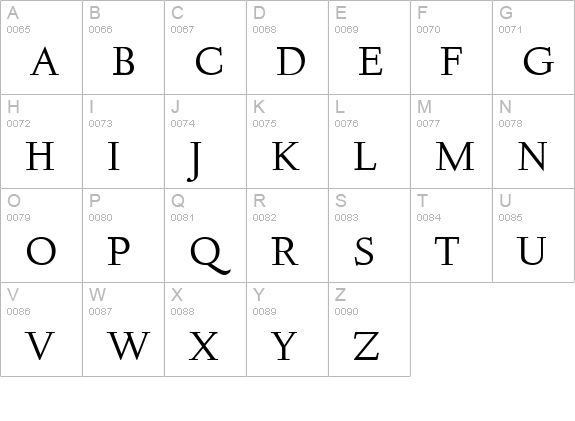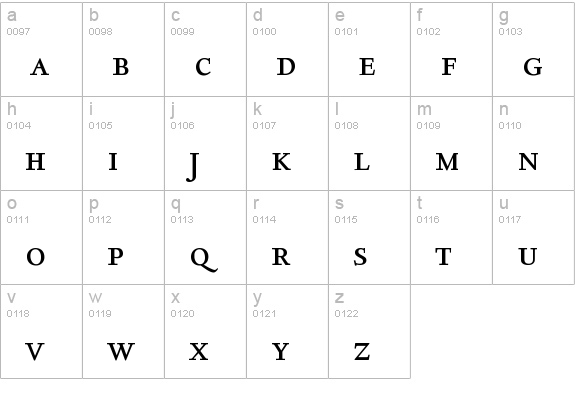
Deepdene Expert Roman Font Details
Deepdene Expert Roman font is a timeless and sophisticated typeface that exudes elegance and professionalism. Its clean lines and classic design make it perfect for a wide range of projects, from branding to editorial design. The font features a balance of traditional and modern elements, making it versatile and easy to read. What sets Deepdene Expert Roman font apart is its exceptional legibility and readability, even at smaller sizes. The font's fine details and intricate curves add a touch of refinement to any design, while its sturdy structure ensures clarity and impact. Best of all, Deepdene Expert Roman font is available for free download at FontsMarket.com. This means you can easily add this premium typeface to your collection without any cost. Don't miss out on the opportunity to enhance your projects with the timeless beauty of Deepdene Expert Roman font. Download it today and elevate your designs to the next level.